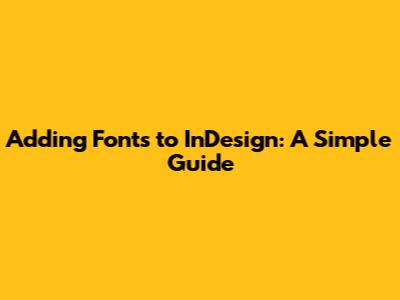
Hey everyone! Ever wondered how to add typeface to InDesign? You know, getting those perfect fonts into your layouts so they look absolutely stunning? Well, you've come to the right place! InDesign is a powerhouse for design, but it’s only as good as the fonts you feed it. Whether you're a seasoned designer or just starting out, getting your fonts right is super crucial. It’s all about making your text readable, visually appealing, and reflective of your brand or the message you want to convey. So, let’s dive into how to do this easily, breaking down the process so it's simple to follow. We will cover the essentials, from installing fonts on your computer to accessing them within InDesign, and troubleshooting any issues that might pop up. By the end, you'll be a font pro, ready to create some awesome designs!
Understanding Fonts and Why They Matter in InDesign
Before we jump into the nitty-gritty of how to add typeface to InDesign, let’s quickly chat about why fonts are so freakin’ important. Fonts, also known as typefaces, are more than just the letters on a page. They are a powerful design element that shapes how your content is perceived. Think about it: a font can be elegant, playful, serious, or modern. Each font has its own personality, and choosing the right one sets the tone for your entire project. It's like picking the perfect outfit; it can make or break the impression you make! A font that looks great in a headline might not work at all for body text, and vice versa. That's why having a wide variety of fonts at your disposal is key when working with InDesign. They are absolutely critical for effective communication. So whether you’re working on a magazine spread, a brochure, or a website mockup, your font choices will either enhance or detract from your message. Now, fonts also affect readability. A well-chosen font makes it easy for readers to absorb your information, while a poorly chosen one can make the text difficult to read and drive people away. When it comes to branding, fonts play a huge role. They help establish your brand identity, making your designs recognizable and memorable. When you use fonts consistently across different platforms, you strengthen your brand's image. Plus, don't forget the legal side of things! Make sure you have the proper licenses for the fonts you use, so you don't run into any legal issues down the road. Alright, with the foundation set, let’s get into the step-by-step instructions on adding fonts!
Installing Fonts on Your Computer
Alright, so you’ve got some cool new fonts you wanna use in InDesign – awesome! But first, you need to make sure they’re installed on your computer. This is the crucial first step before you even open InDesign. Luckily, it’s a pretty straightforward process. Let’s break it down for both Windows and macOS, so you'll be ready to easily add your typefaces. First, downloading fonts. You can get fonts from various places, like Google Fonts (which is free and fantastic!), Adobe Fonts (if you have a Creative Cloud subscription), or any number of premium font websites. Make sure the fonts you choose are compatible with your operating system, and that you download the font files. Common font file formats include TrueType (.ttf), OpenType (.otf), and PostScript Type 1 (.pfb). Once the font files are downloaded, you’ll need to install them. On Windows, right-click the font files and select “Install.” Alternatively, you can copy the font files into your system’s fonts folder, which is typically located at C:\Windows\Fonts. On macOS, double-click the font files to open them in Font Book. Then, click “Install Font.” Font Book will manage your installed fonts, and you can organize them as needed. After installation, it's a good idea to restart your computer. This ensures that the operating system recognizes the new fonts and makes them available to all your applications, including InDesign. That's it! You’ve successfully installed your fonts! Now you’re ready to open InDesign and start using them. Remember, font installation is a one-time process, so once you do it, you’re good to go. Keep in mind, that keeping your fonts organized helps with managing them in the long run. Creating a system for organizing your fonts will save you tons of time and headaches later on. Be sure you store all of your fonts in an organized way, so you are ready to easily add typeface when you need it.
Accessing Fonts in InDesign
Now that you've got your fonts installed, let's talk about how to add typeface in InDesign. Opening up InDesign and getting your new fonts to show up is the next big step. This part is super simple, but if you don't know where to look, it can feel a little confusing. First, open InDesign. If it's already running, then you're ready to go! Create a new document or open an existing one. Next, grab the Type Tool (T) from the toolbar, or simply click on the text tool. Select a text frame or create a new one by clicking and dragging. Now, with your text frame selected, it’s time to choose your font. In the Control Panel at the top of the InDesign window, you’ll see the font selection drop-down menu. If you don't see the Control Panel, go to “Window” > “Control” to make it visible. Click on the drop-down menu, and you’ll see a list of all the fonts installed on your system. Scroll through the list to find your new font. If you know the name of the font, you can start typing it in the search box to filter the list. When you find the font you want, click on it, and the font will be applied to your selected text. Now to switch it up, you can also access your fonts through the Character Panel (“Window” > “Type & Tables” > “Character”). This panel gives you more detailed control over your fonts, including font styles (bold, italic, etc.), size, and other text formatting options. The Character Panel is your best friend when it comes to fine-tuning the look of your text. Take your time and explore the different options in the Character panel. You can experiment with different font sizes, leading, tracking, and kerning to get the exact look you want. Also, you can change the font style in the drop-down next to the font name in the Control Panel or Character Panel. This allows you to choose between bold, italic, regular, and other styles. It's like having your own personal font playground! Once you understand these panels and menus, finding and applying fonts in InDesign is a breeze. It's really the gateway to awesome typography. You’ll be able to quickly apply new fonts and play around with their various styles.
Troubleshooting Font Issues in InDesign
Okay, so sometimes things don’t go perfectly smoothly. Let’s talk about some common font issues and how to fix them. The most common problem is that the font you just installed doesn't show up in InDesign. Usually, this is because InDesign wasn’t restarted after you installed the font. The fix? Close InDesign and then re-open it. Make sure you've installed the font correctly on your operating system, too. Double-check that you've actually installed the font. Sometimes, a font might look similar to another one, so make sure you're selecting the correct font from the list. Also, make sure that InDesign has access to the fonts. Another common issue is a missing font error. This happens when a document uses a font that isn't installed on your computer. InDesign will alert you with a warning. When a document uses a font that you don't have installed, InDesign will substitute it with a default font. To fix this, either install the missing font or replace it with a font you do have. If you choose to replace it, InDesign will ask you to pick a replacement. Another issue is font corruption. If a font file is damaged, it might not display correctly or could even cause InDesign to crash. To fix this, you may need to reinstall the font from its original source. If you have multiple versions of the same font, it can cause conflicts. Delete any older or duplicate versions to keep things clean. And remember, licensing is super important. If you’re using fonts commercially, make sure you have the right licenses. If you’re getting error messages, read them carefully. They often give clues about what's going wrong. You can always search online for the error message, and you’ll often find solutions. Be patient and keep experimenting. Sometimes, the fix is just a small, simple adjustment. Don’t get discouraged! Even experienced designers run into font issues from time to time.
Font Management Best Practices
To make your life easier and your workflow smoother, let’s talk about some font management best practices. First, organize your fonts. Create folders on your computer to categorize your fonts. You can organize by font family, style, or the type of project you're working on. This way, you’ll be able to easily find the fonts you need, and you can quickly add typeface to InDesign. You can use font management software. These tools help you organize, activate, and deactivate fonts as needed. This helps you avoid system slowdowns and manage conflicts. Next, always back up your fonts! You never know when your hard drive might fail, so having a backup of your fonts is essential. You can back them up to an external drive or cloud storage. Then, keep your font library clean. Regularly review and remove any unused fonts. Too many fonts can slow down your system and make it harder to find the ones you actually need. And don't use too many fonts in a single project. Stick to a few, well-chosen fonts to keep your designs consistent and readable. Consider creating font kits for your projects. This involves choosing a set of fonts that work well together and saving them for future use. When working on a team, establish a shared font library or font management system. This ensures that everyone has access to the same fonts and avoids any compatibility issues. Finally, stay updated. Make sure your font management software is always updated. Following these practices can save you time, improve your workflow, and help you get the most out of your InDesign projects!
Conclusion: Mastering Fonts in InDesign
Alright, you guys, you've reached the end of this guide! You now have a solid understanding of how to add typeface in InDesign, and you're well-equipped to use fonts like a pro. From installing fonts on your computer to troubleshooting common issues, you now have the tools and knowledge you need to create amazing designs. Remember that the right font can make all the difference. Keep experimenting with different fonts and styles until you find the perfect match for your projects. Keep these steps in mind, and you will be able to easily add typeface to your InDesign. Happy designing!